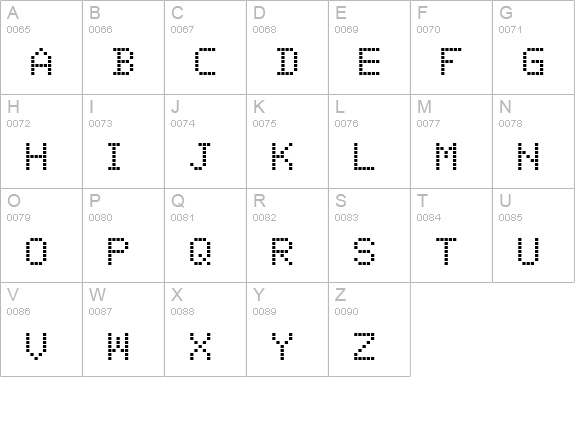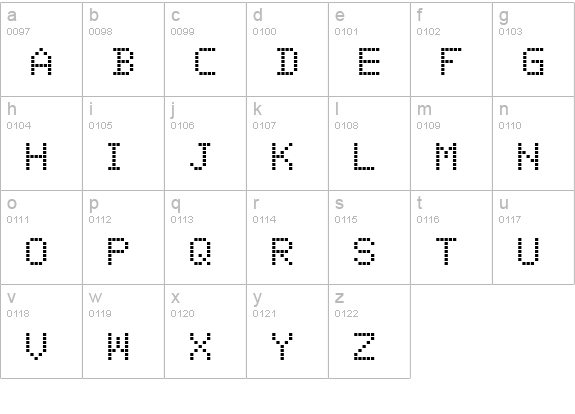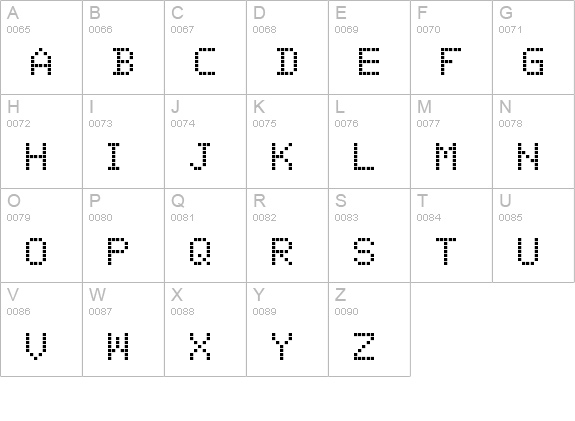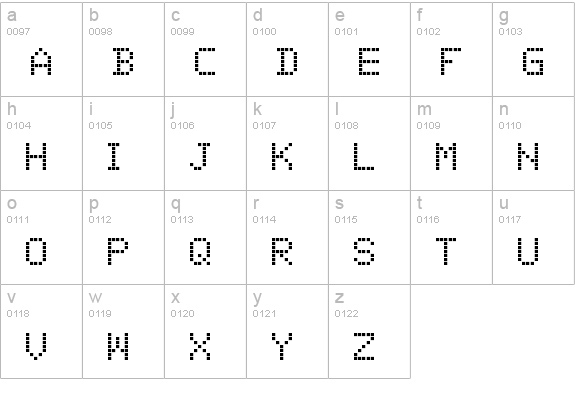
01 Digit Font Details
Introducing the captivating and modern 01 Digit font! This stylish typeface is the perfect choice for projects that require a sleek and contemporary look. With its clean lines and sharp edges, 01 Digit exudes a sense of sophistication and professionalism. Whether you're designing a logo, creating posters, or crafting social media graphics, this font is sure to make a bold statement. Best of all, 01 Digit is completely free to download at FontsMarket.com. This means you can easily access this stunning font without any cost, making it a fantastic option for both personal and commercial use. Don't miss out on the opportunity to elevate your designs with the striking 01 Digit font today!